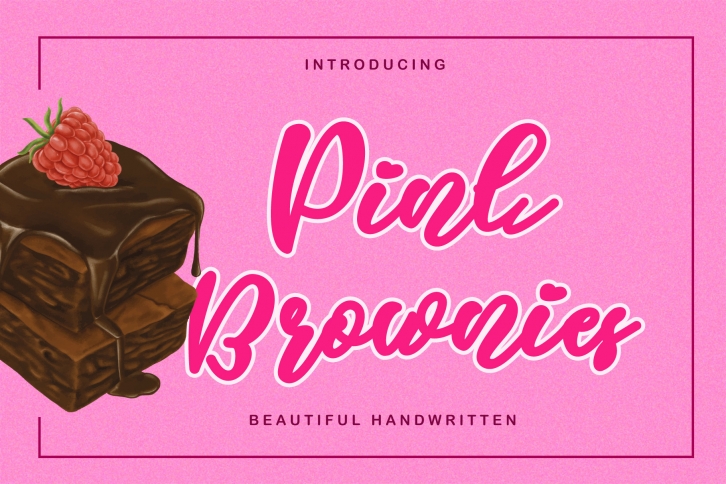
Pink Brownies is a pretty, smooth, elegant, and flowing handwritten font. It has a beautiful and balanced character and as a result, it fits well into a collection of designs such as product brands, wedding invitations, and so on.